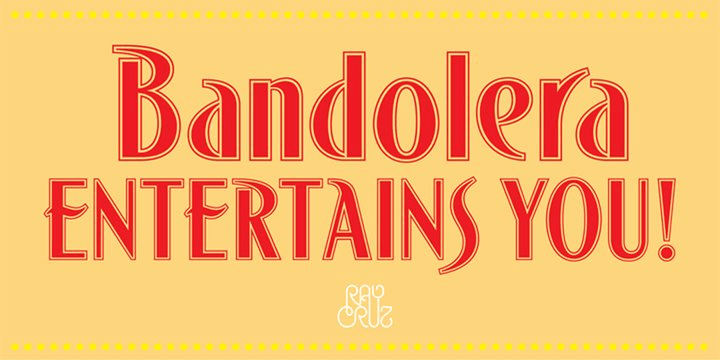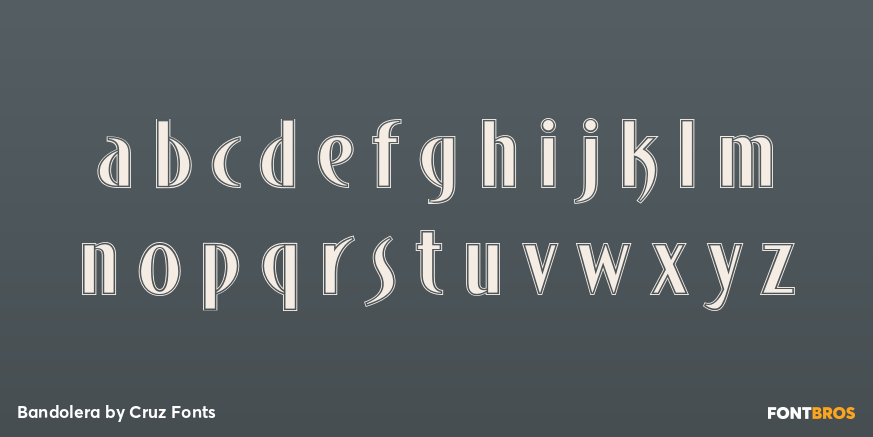
Bandolera
Font Family by Cruz Fonts
Bandolera is a contemporary display font with a modern, special-effect look that feels bold, graphic, and attention-grabbing. Its stylized character makes it a strong choice when you want typography to do more than simply set words—it helps create a clear visual mood.
With 1 font style in the family, this release from Cruz Fonts is well suited to standout uses like posters, branding, packaging, social graphics, and other decorative display work where a distinctive typographic voice matters. If you’re after a modern face with a more experimental edge, this one brings a clean but expressive presence.